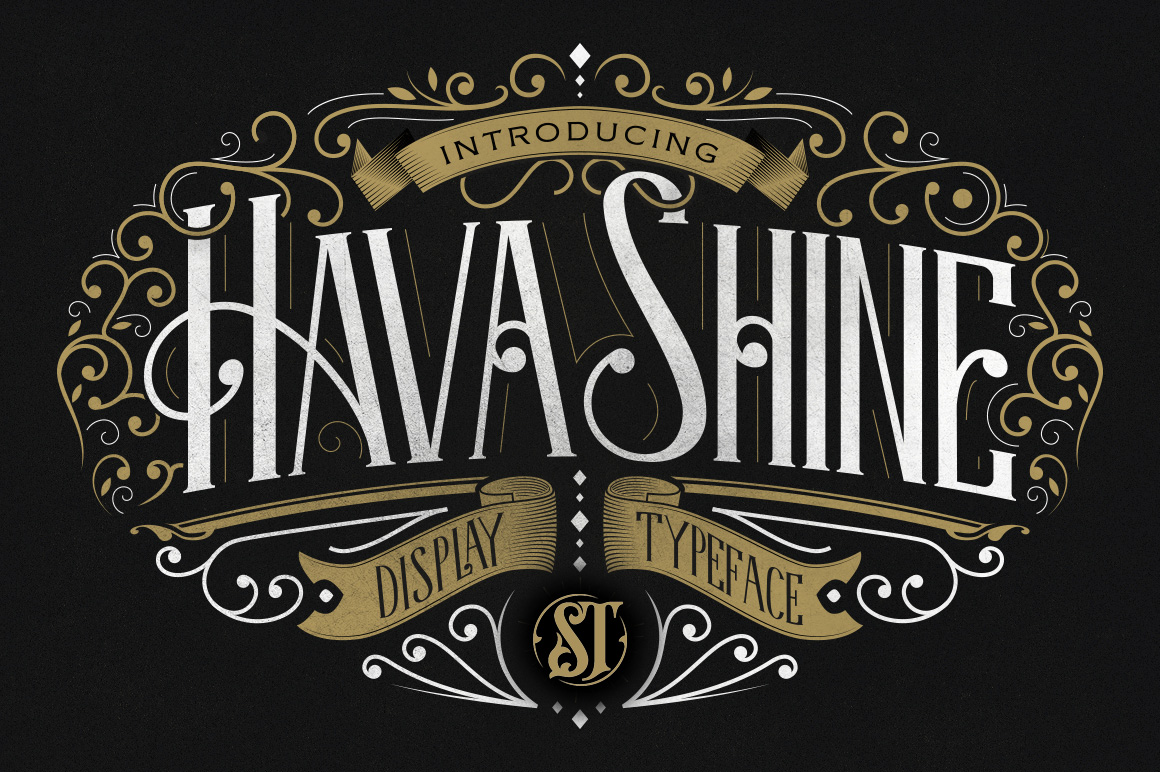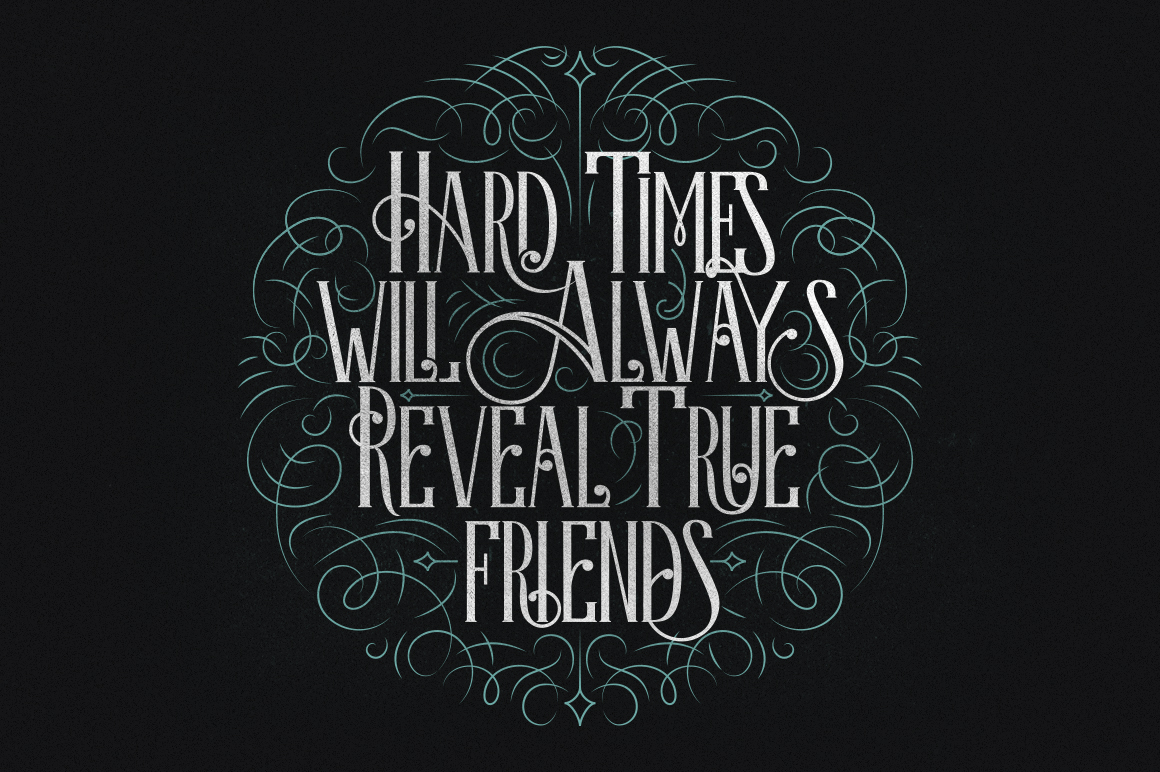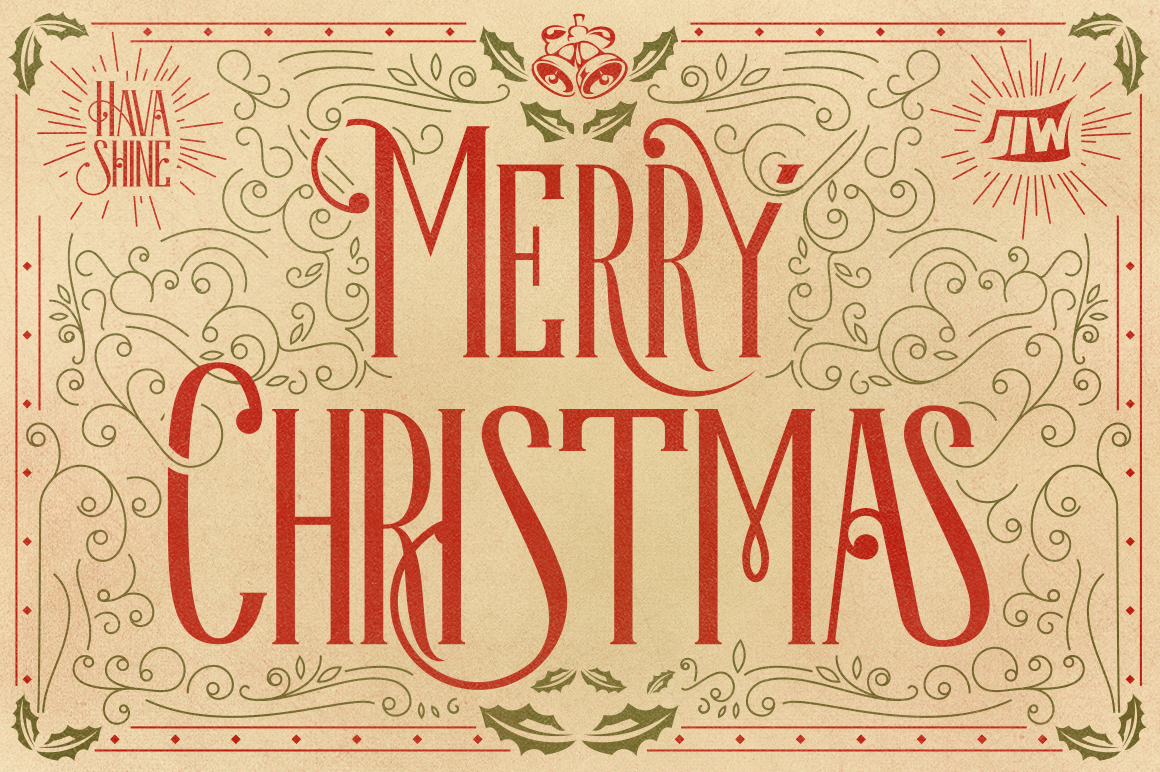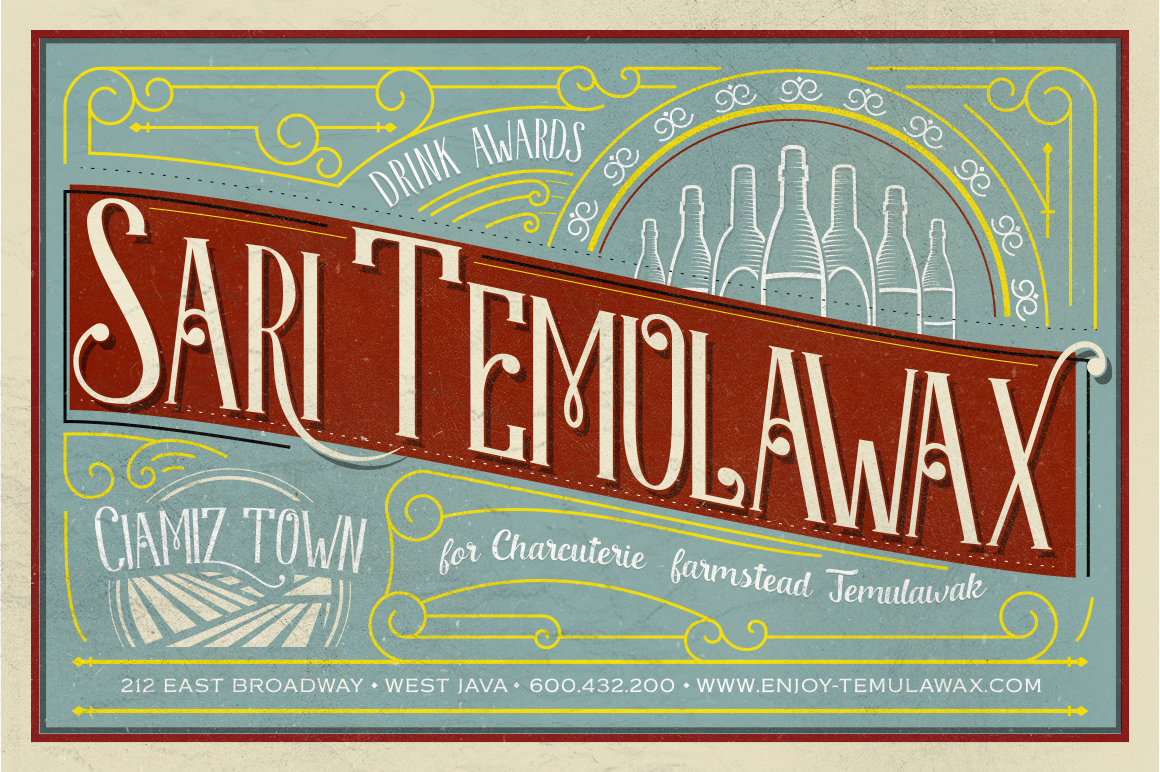
Hava Shine Font: Victorian Art Deco Display Font for Unique Logo Design
About the Hava Shine Font
Meet Hava Shine Font, a stunning font that brings a touch of elegance and professionalism to any design. Inspired by Victorian style and Art Deco sensibilities, Hava Shine is the new, definitive decorative font. Hava Shine reads well, has character alternates, and can give your designs an unparalleled luxurious feel.
Hava Shine excels in headline treatments, logos, and short, impactful text for branding materials and packaging design. Its decorative nature makes it ideal for projects requiring a touch of vintage glamour or Art Deco sophistication. Avoid using it for body text or long paragraphs; its ornate details would hinder readability.
The font’s core personality is elegant and bold. It projects a sense of luxury and refined confidence. This makes it particularly suitable for high-end brands, fashion, beauty, and lifestyle products.
For effective pairings, consider a clean sans-serif like Montserrat or Open Sans for body text to provide contrast and enhance readability. A classic serif such as Garamond or Didot can add a complementary layer of sophistication for secondary text elements. Avoid pairing it with other highly decorative fonts, as this would create visual clutter.
Hava Shine Font Usage Examples
Hava Shine Font Example